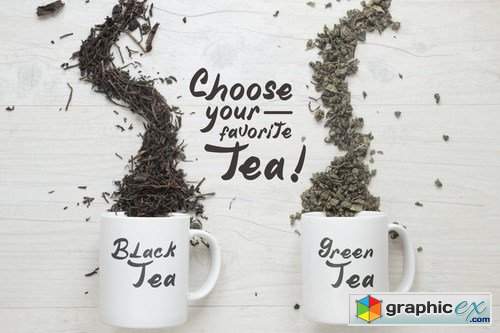
Niagato - Japanese Display Font
Niagato is Font that inspired by chinese letter style, perfect for any Asian theme of design & promotion to create spectacular designs!